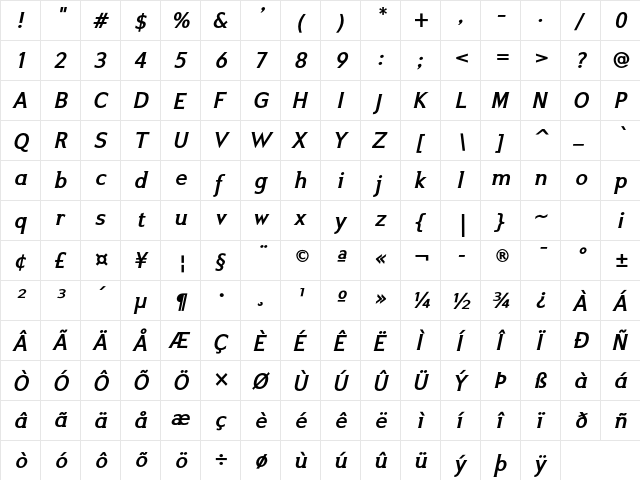
Ikarius ADF No2 Std Bold Italic
| Foundry | Arkandis Digital Foundry. |
| Designer | HARENDAL Hirwen |
Design Context for Ikarius ADF No2 Std Typeface
Ikarius ADF No2 Std offers clean, dependable letterforms without strong stylistic allegiance, making it a practical choice for designers who need flexibility. The slanted form adds forward momentum and visual energy. Its bold stroke weight gives it real presence on the page.